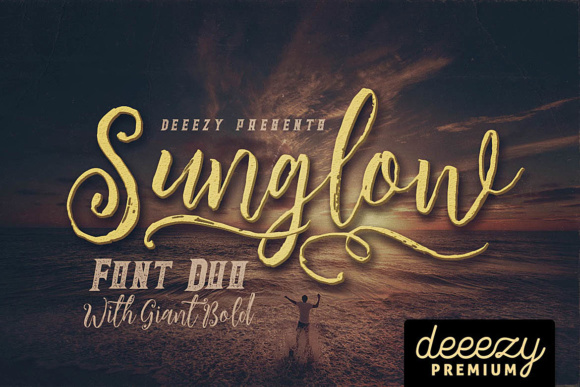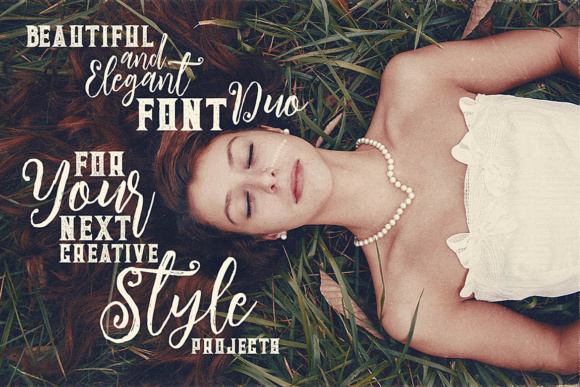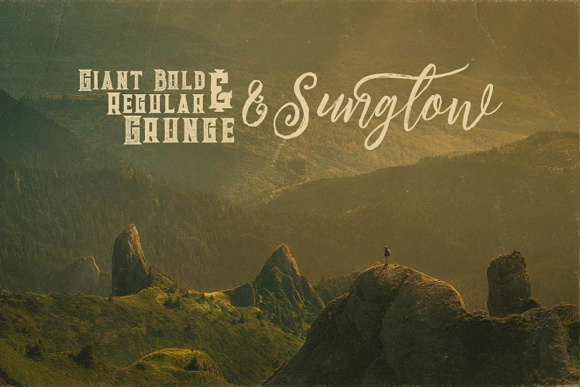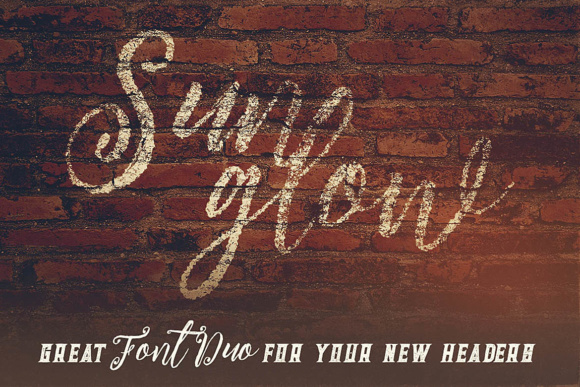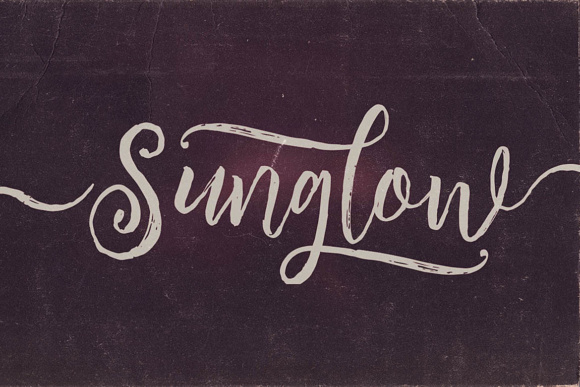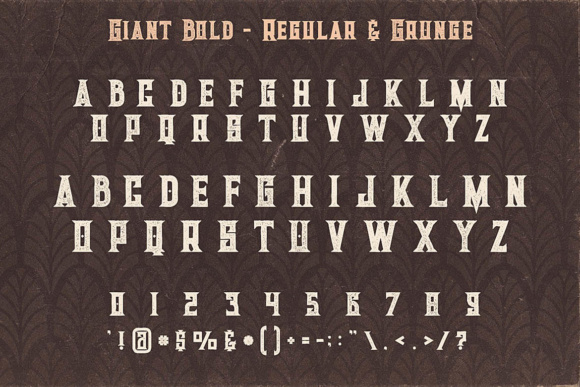
Sunglow Font
About Sunglow Font
Sunglow is a fun and decorative vintage script font, ideal for use in throwback designs. This pairing with Giant Bold is a great way to give your designs an ornate appeal.